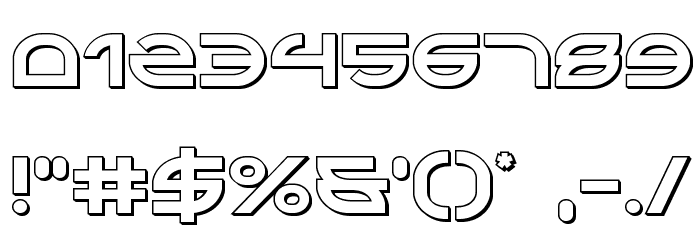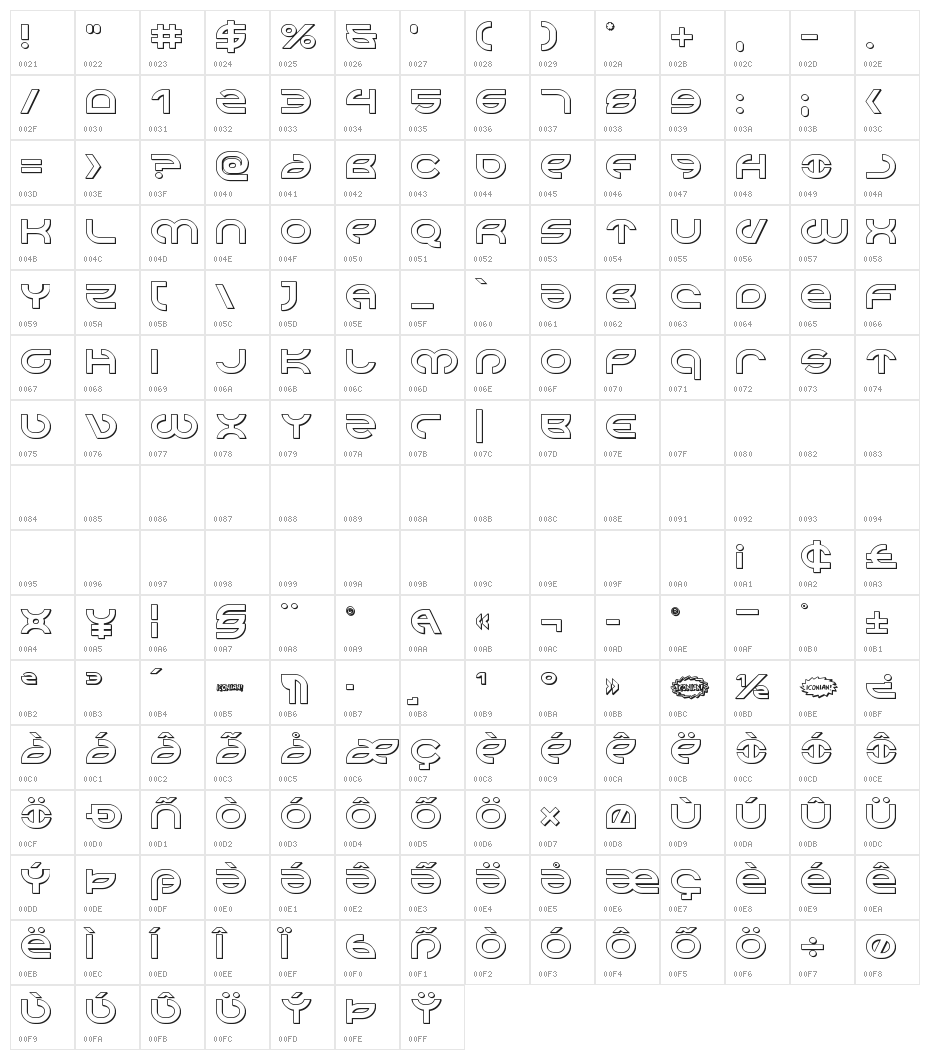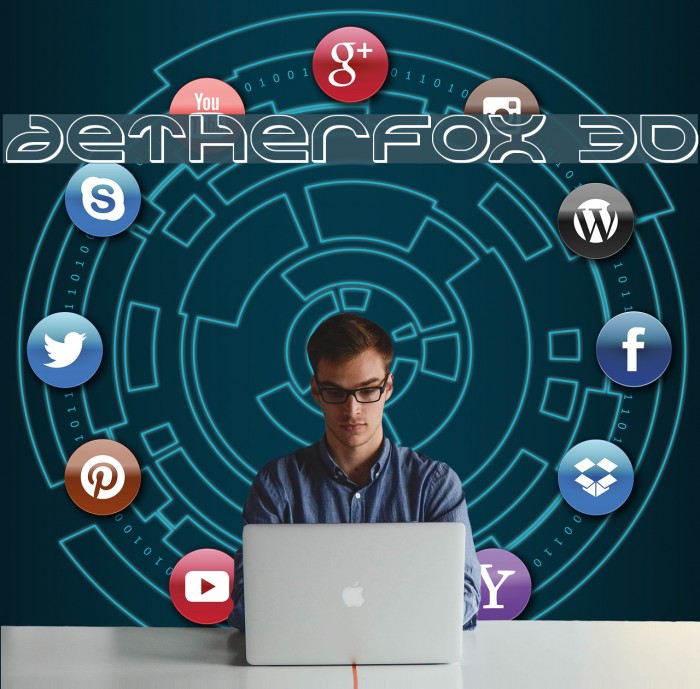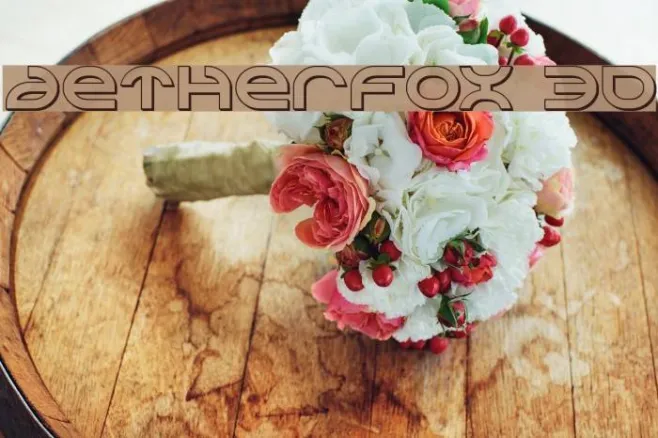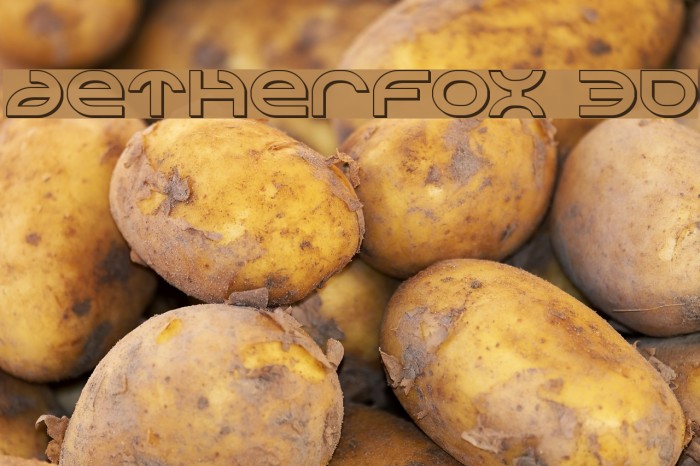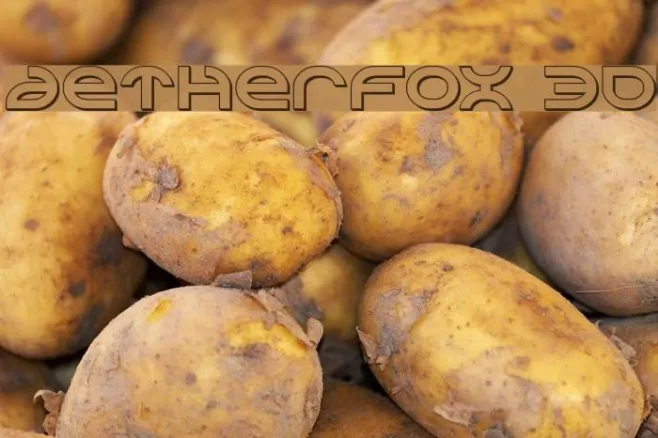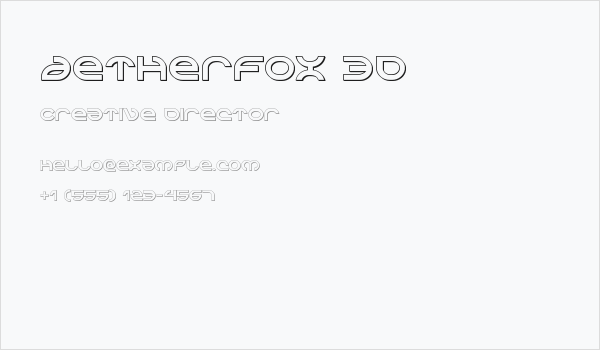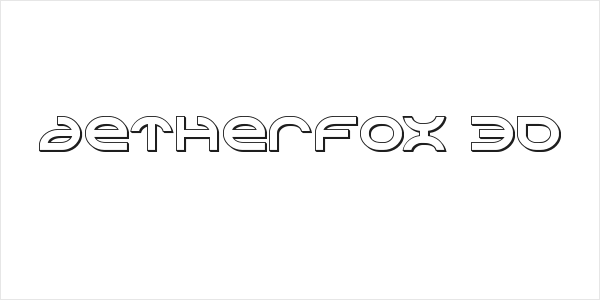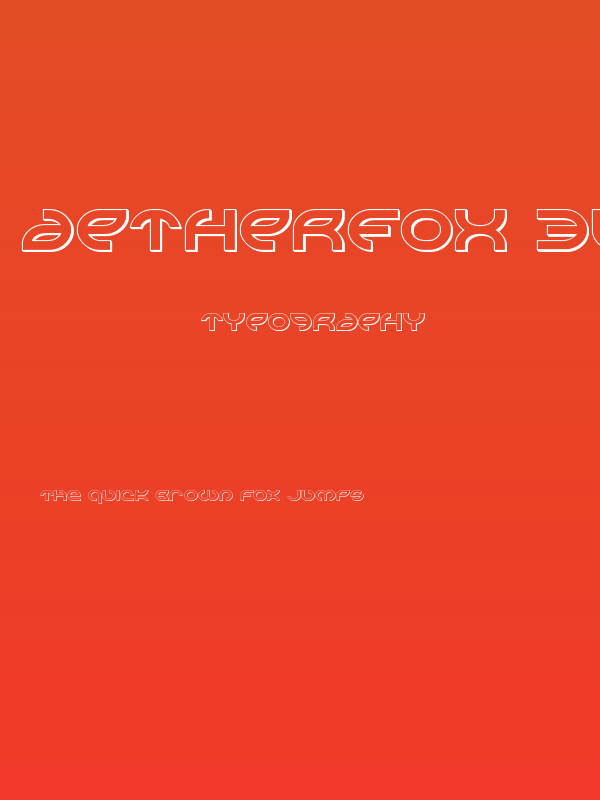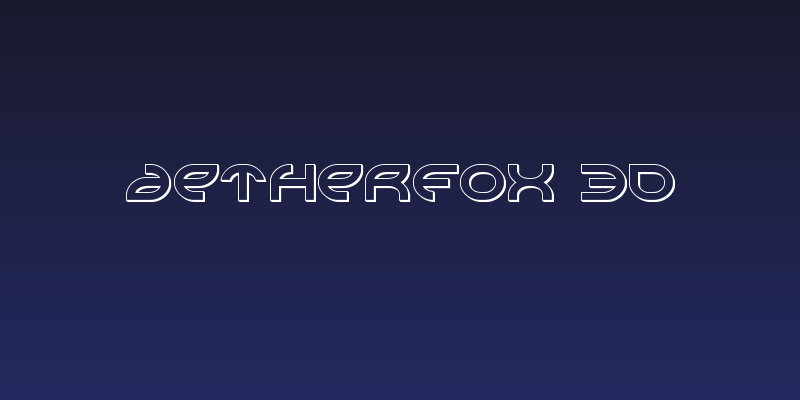
Aetherfox 3D Font
Aetherfox 3D Description
This font features a futuristic and geometric design, characterized by its unique blend of curves and sharp angles. The letters are outlined, creating a hollow effect that adds depth and dimension. The style is consistent across both uppercase and lowercase letters, as well as numbers and special characters, maintaining a cohesive look. The font's structure is bold and eye-catching, making it suitable for modern and tech-oriented designs. Its distinct appearance is ideal for projects that require a standout, contemporary aesthetic.
| Proposed Projects | Ideal for sci-fi themed designs, tech branding, video game titles, and modern posters. |